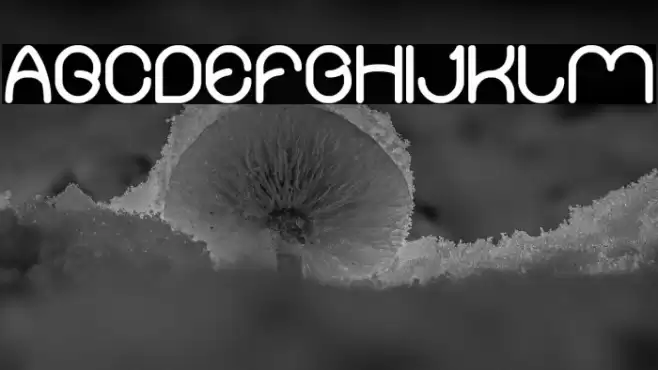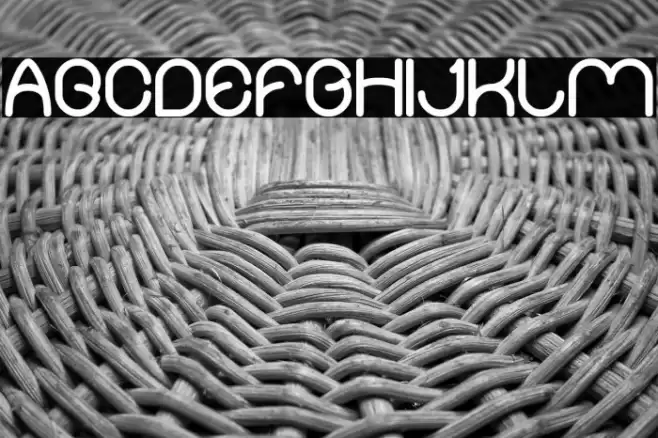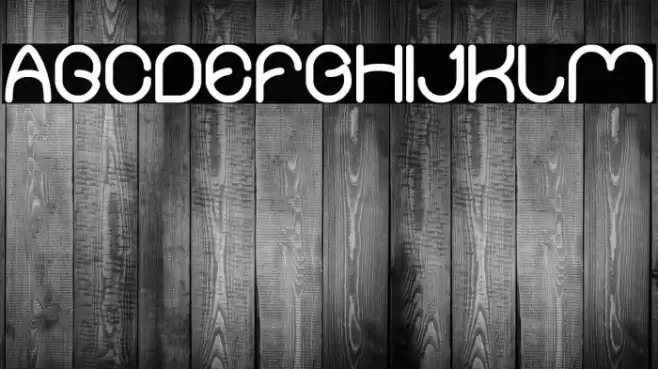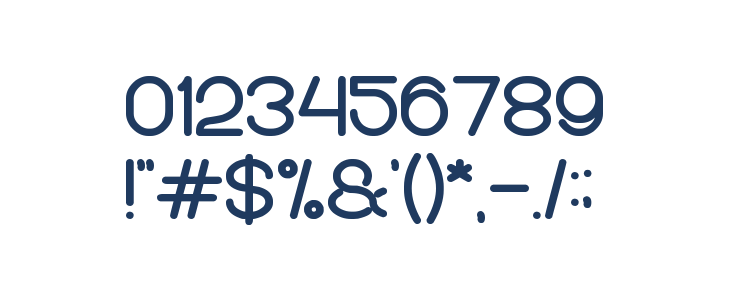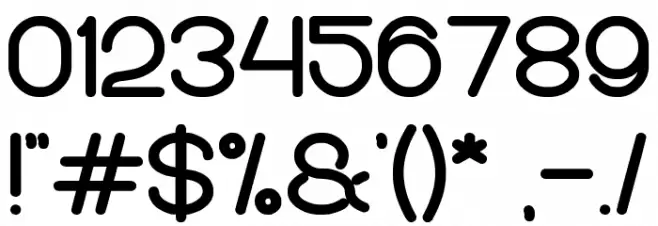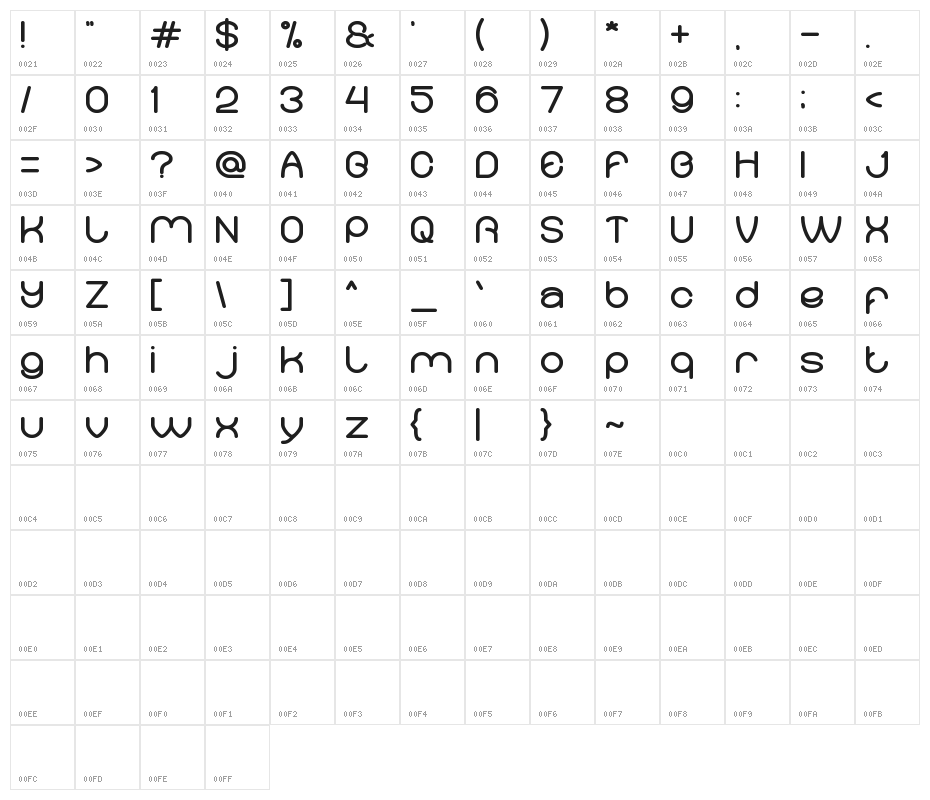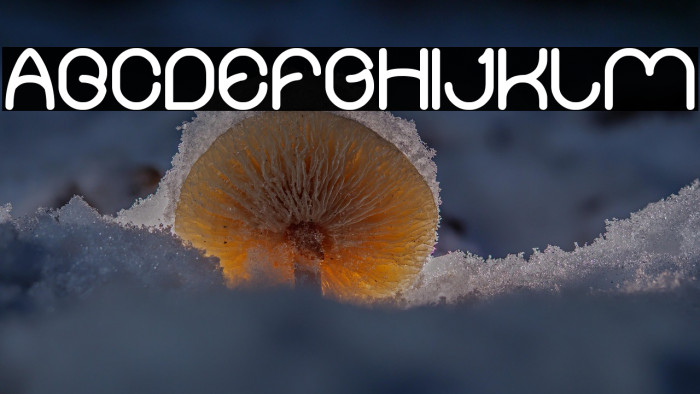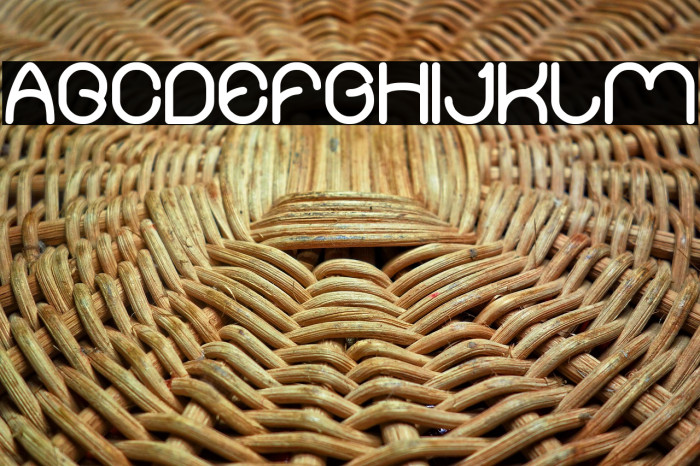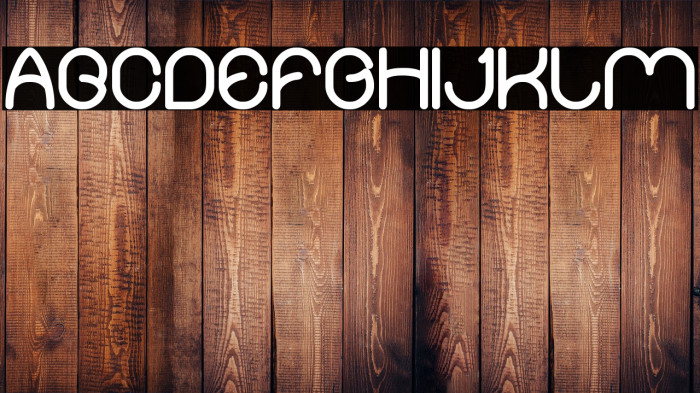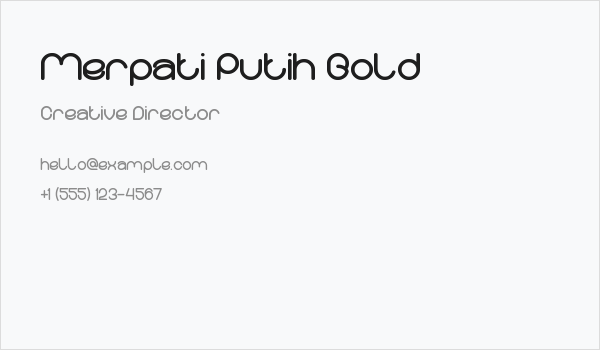
Merpati Putih Bold Font
Merpati Putih Bold Description
This font features a modern and playful design with rounded edges and a consistent stroke width. The characters are evenly spaced, creating a clean and approachable appearance. The uppercase and lowercase letters maintain a uniform style, with smooth curves and a slightly condensed form. Numbers and special characters are designed to match the overall aesthetic, ensuring readability and visual harmony. The font's bold weight adds to its presence, making it suitable for various design applications where a friendly and contemporary look is desired.
A modern, playful font with rounded edges and consistent stroke width from Uncategorized fonts.
- Font: Merpati Putih Bold
- Proposed Projects: Ideal for branding, advertising, children's books, and digital media where a friendly and approachable style is needed.